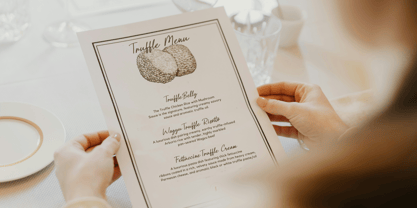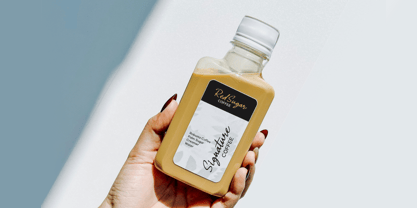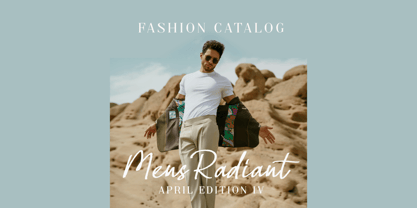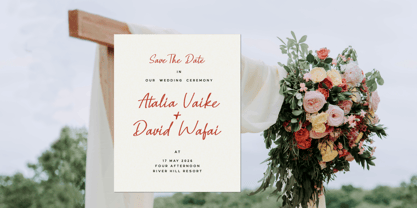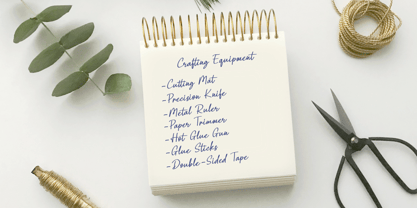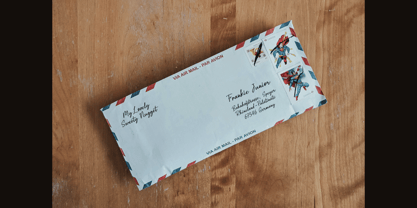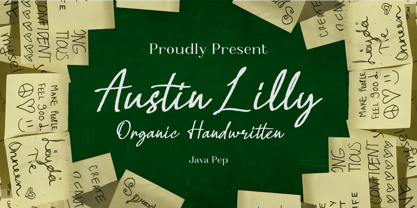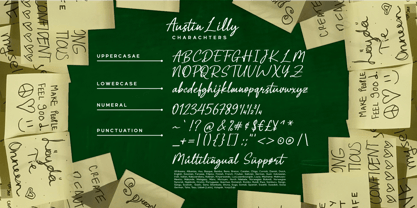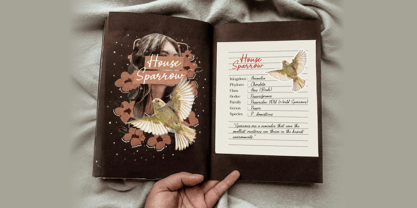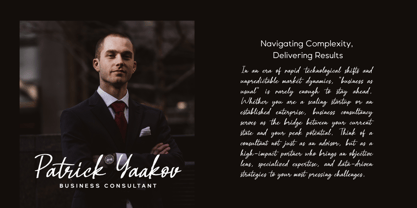
Austin Lilly
by Java Pep
The Austin Lilly Font Family was designed by Java Pep and published by Java Pep. Austin Lilly contains 1 styles. More about this family
Proudly present an organic handwritten font called Austin Lilly. This font is equipped with a lot of alternate features, such as alternates, stylistic alternates, and contextual alternates, so every word and sentence that you type becomes more naturally handwritten. Austin Lilly font is perfect for logos, branding, quotes, stationery, crafting, and scrapbooking text.